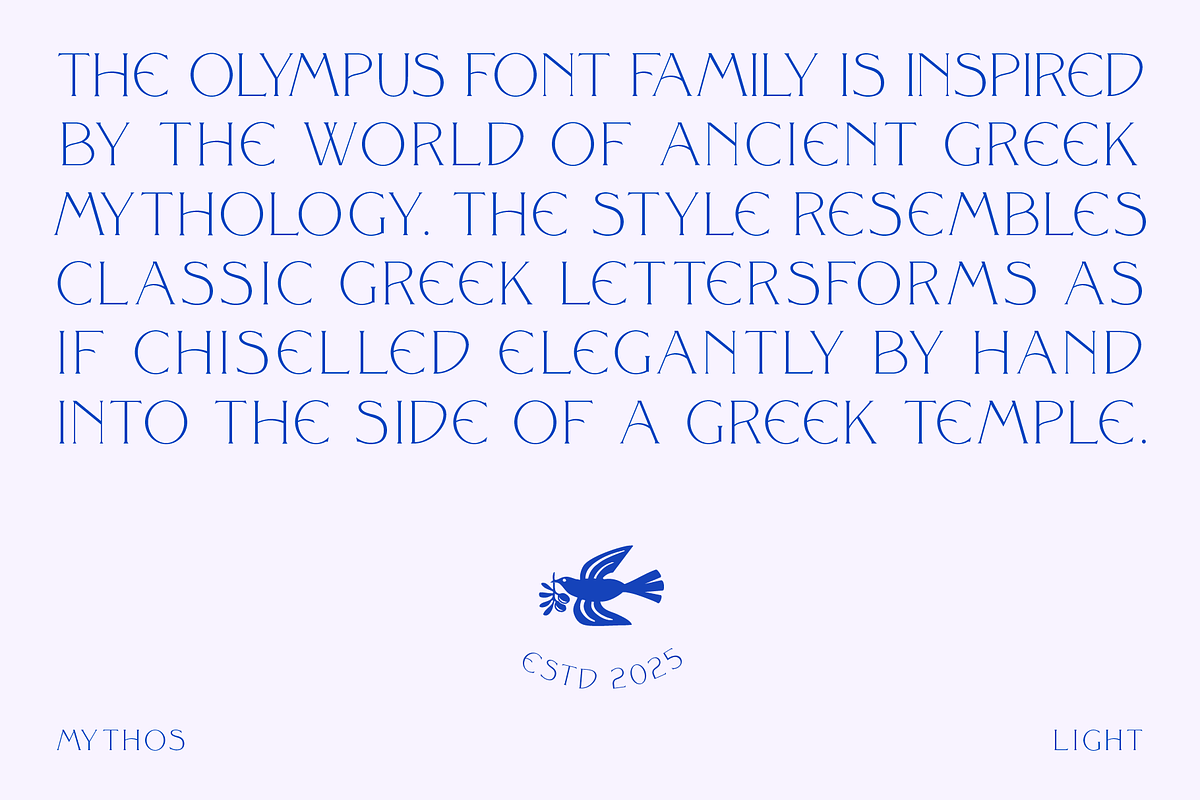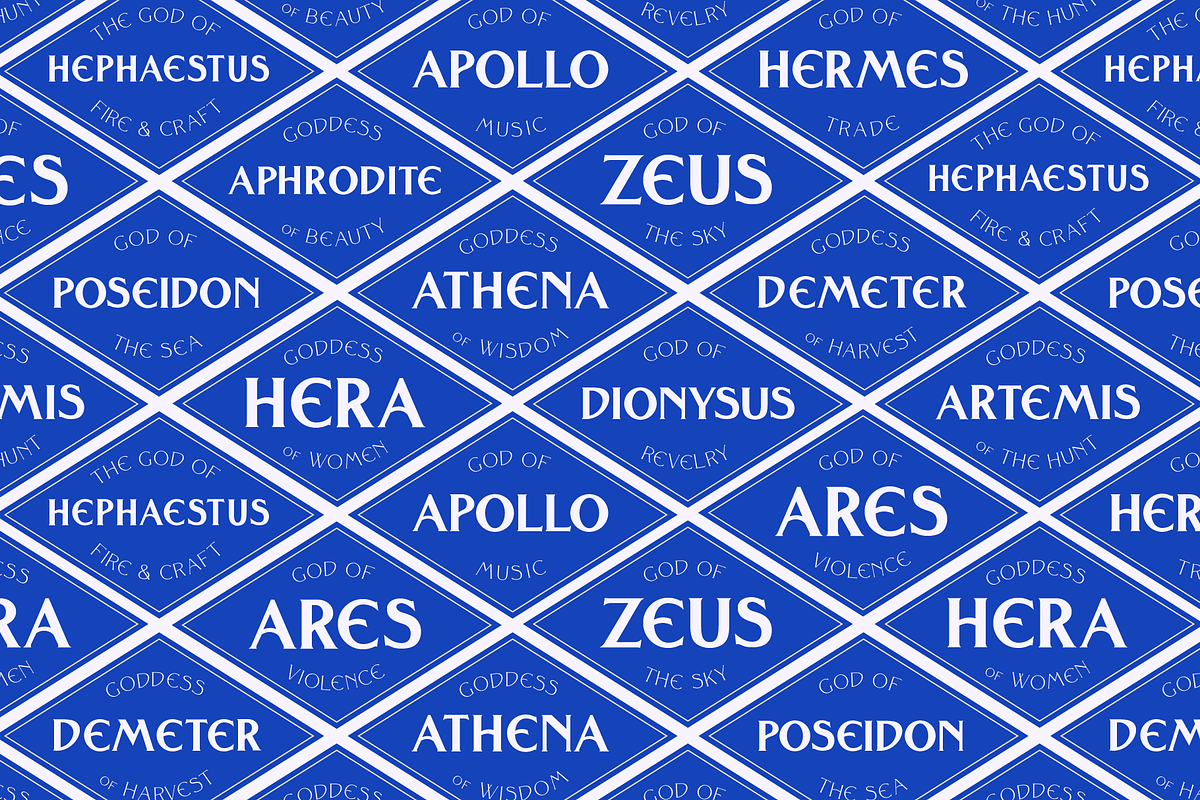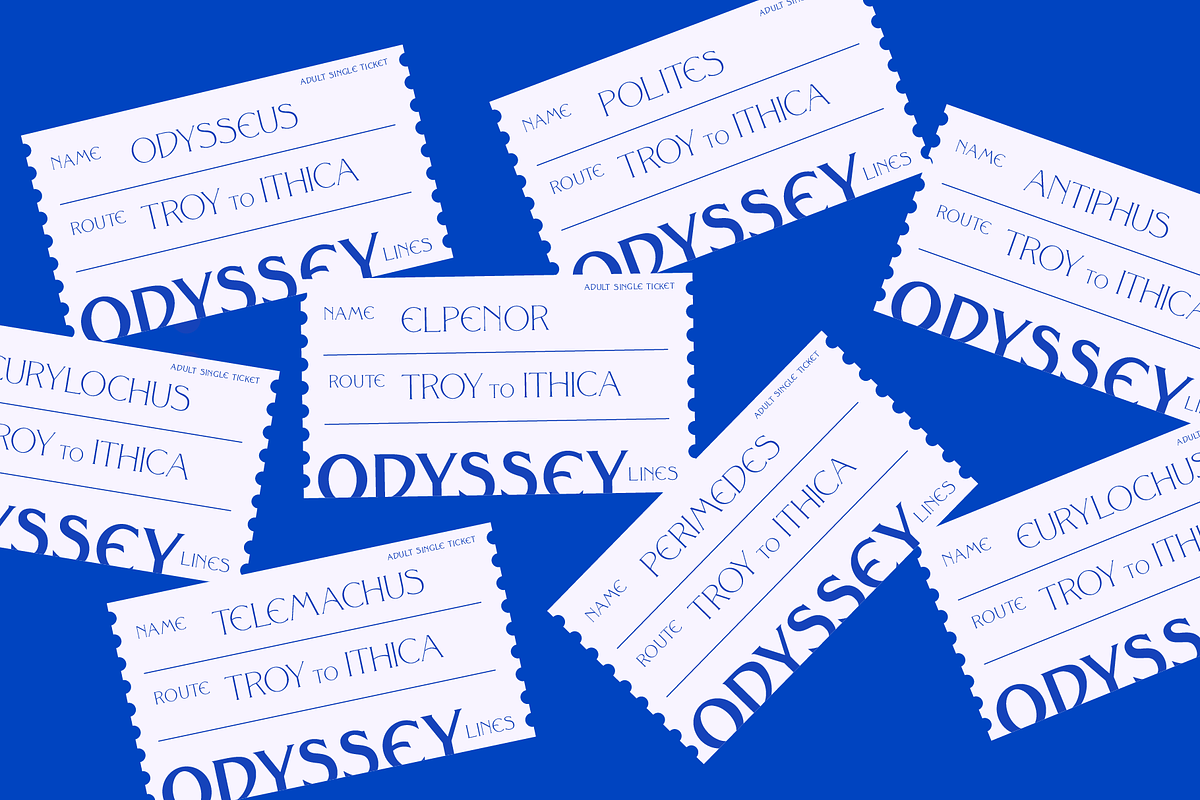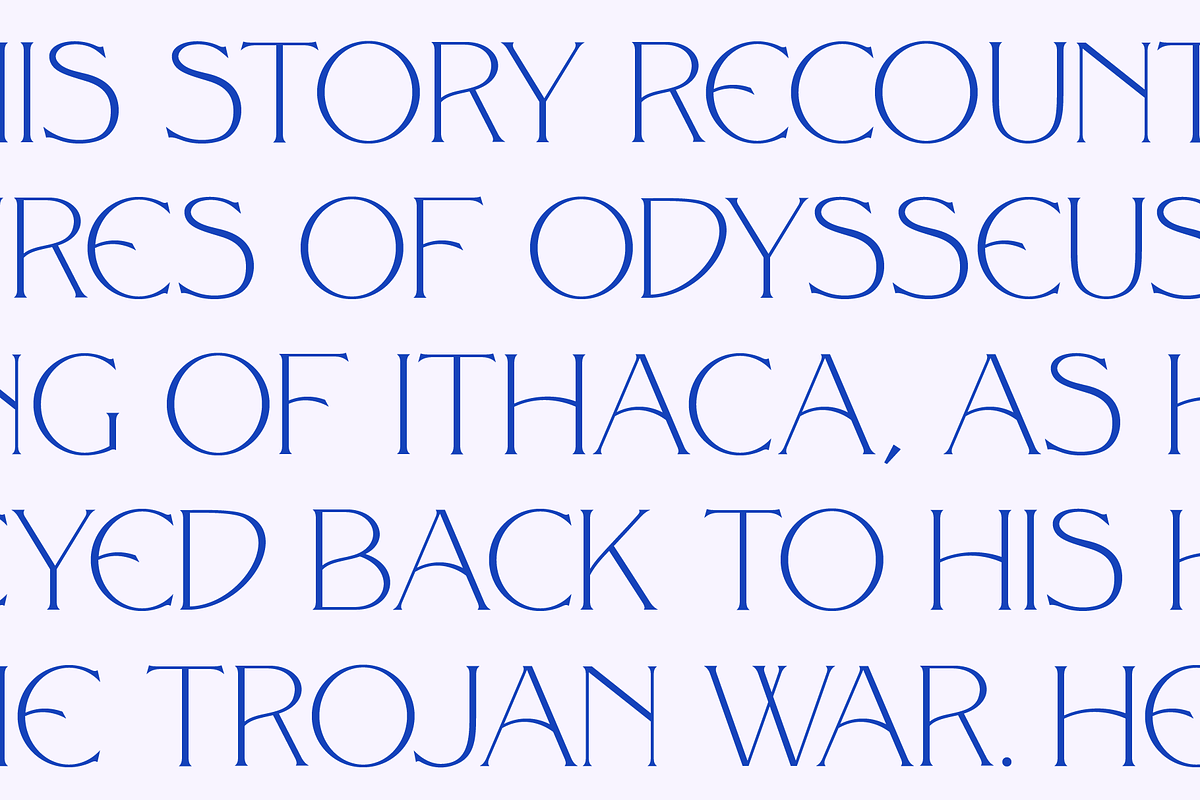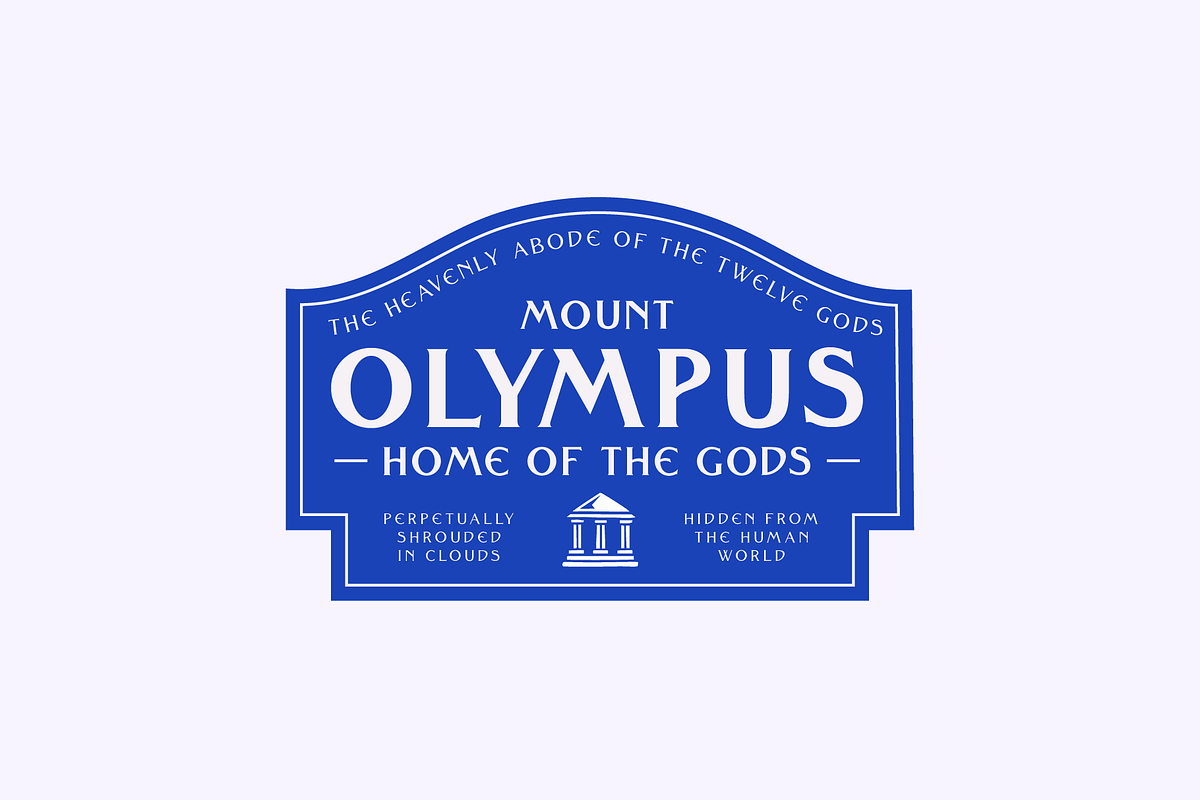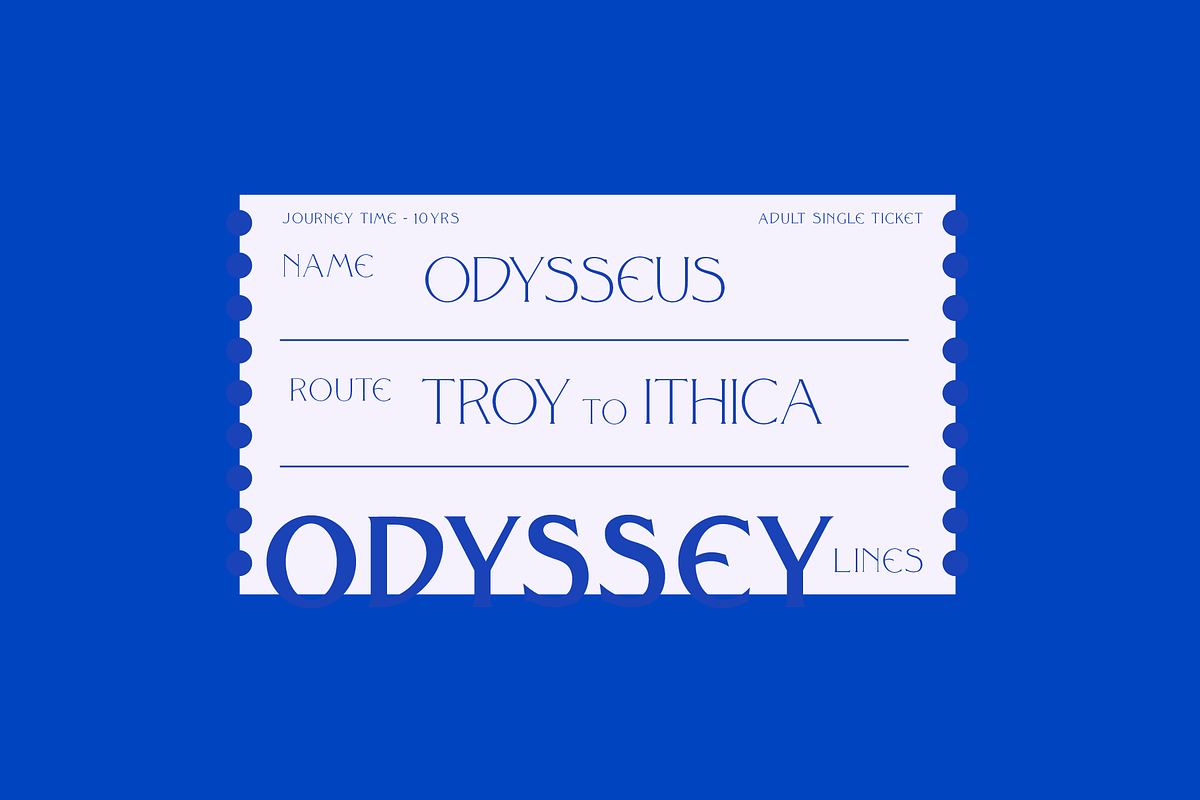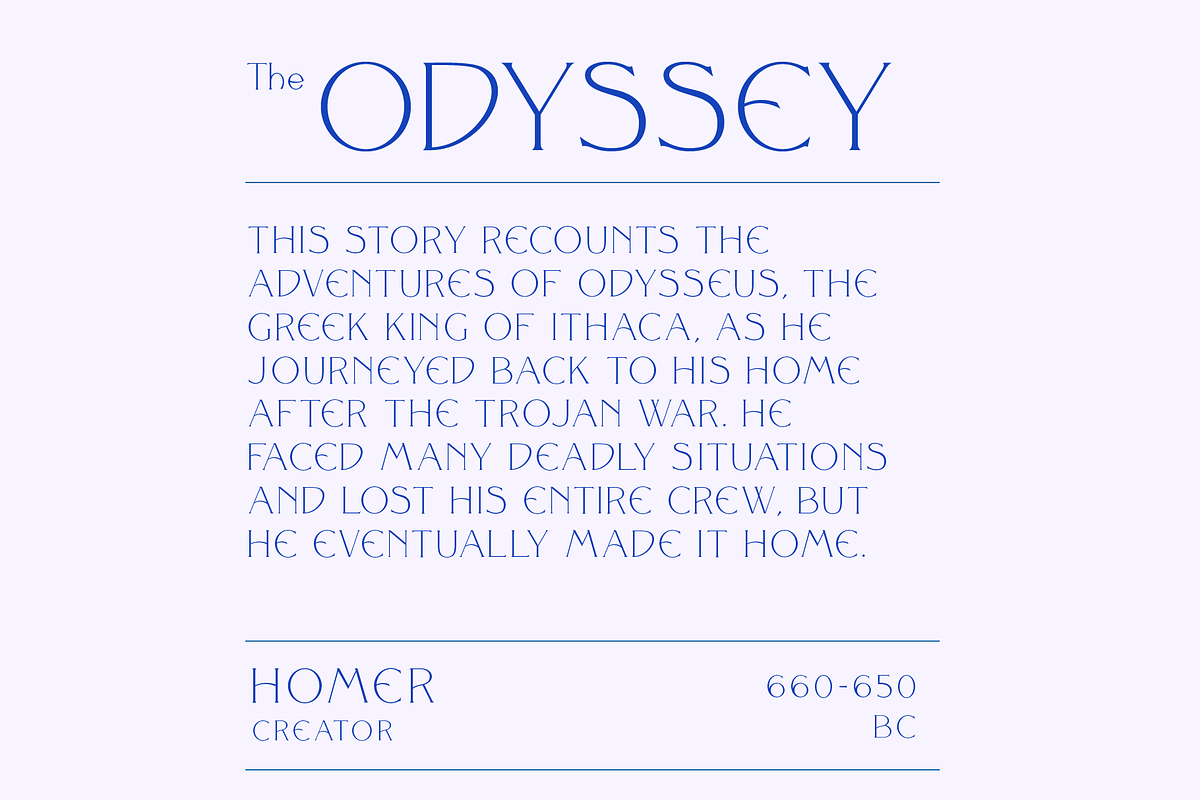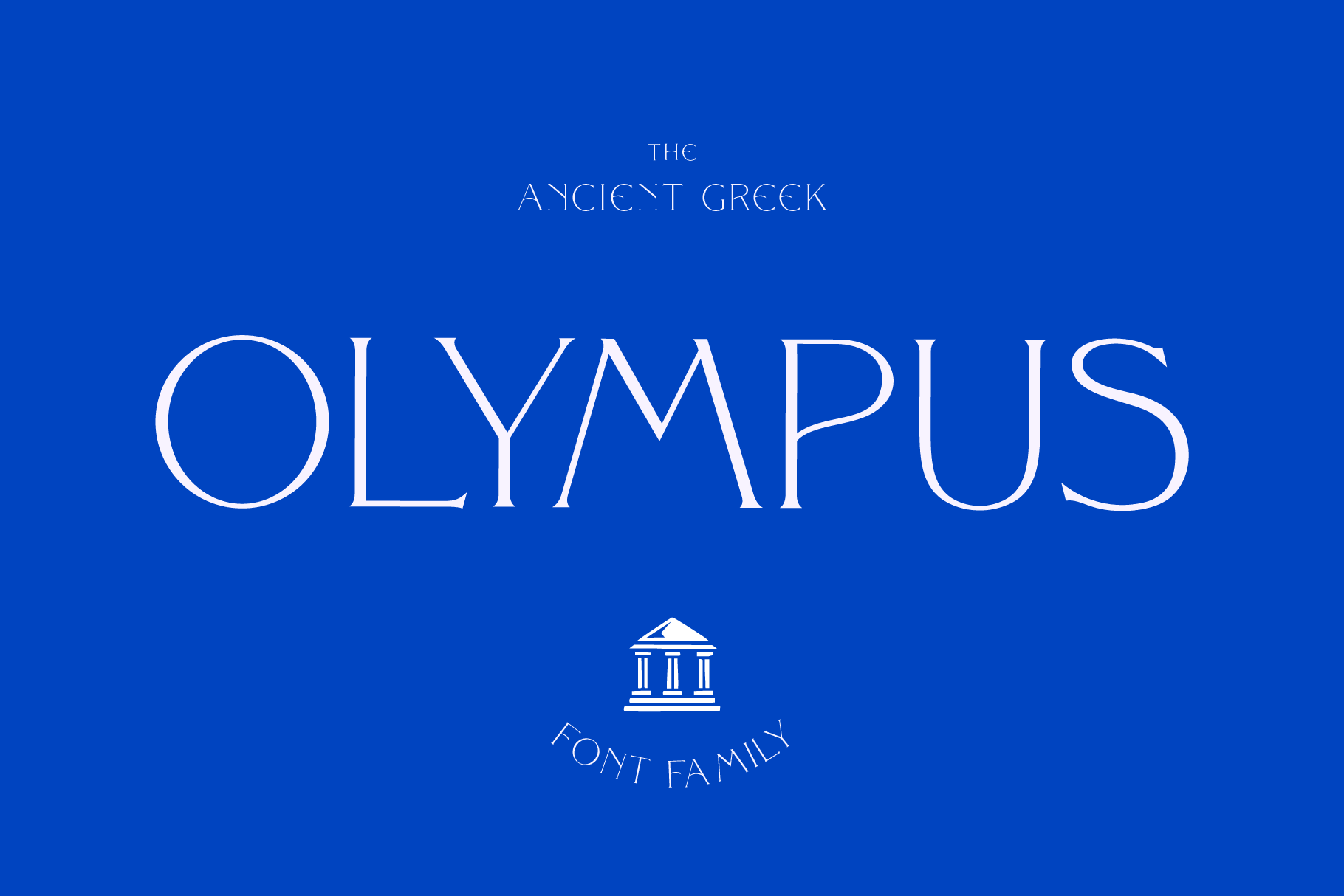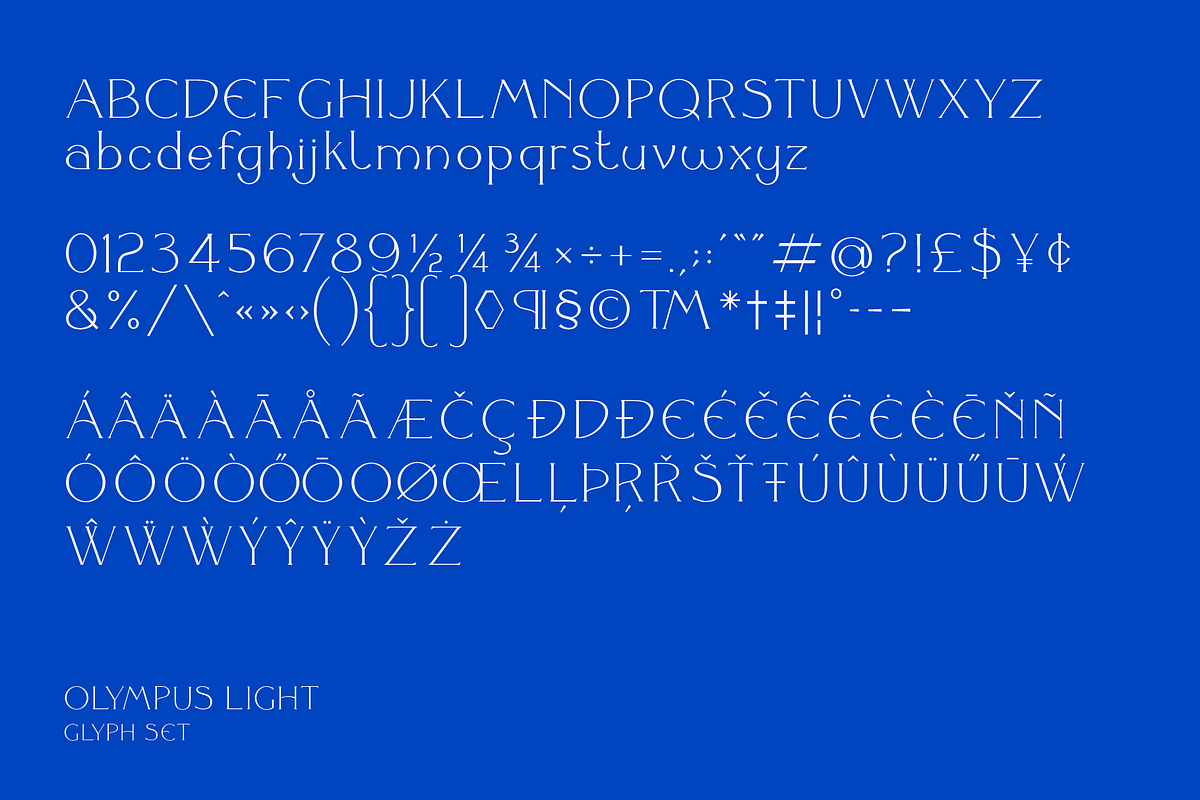
Olympus Font Family
The Olympus font family is inspired by the world of ancient Greek mythology. The heavenly abode of the twelve gods or olympians, Mount Olympus is at the centre of many of the ancient Greek Myths and is often depicted as a place of divine peace. The look and feel of the typeface has a certain elegance and resembles classical Greek curved letterforms as if chiselled into the side of a Greek temple.